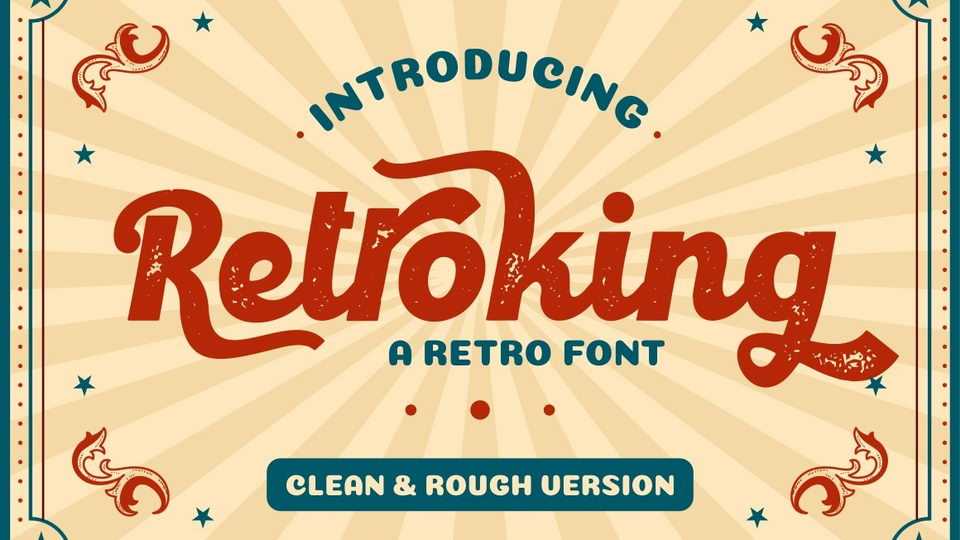
Download Retroking font, a fancy retro style typeface. Retroking is perfect for vintage and retro design, badge, logos,t-shirt, poster, branding, packaging, signage, book coverand so much more!